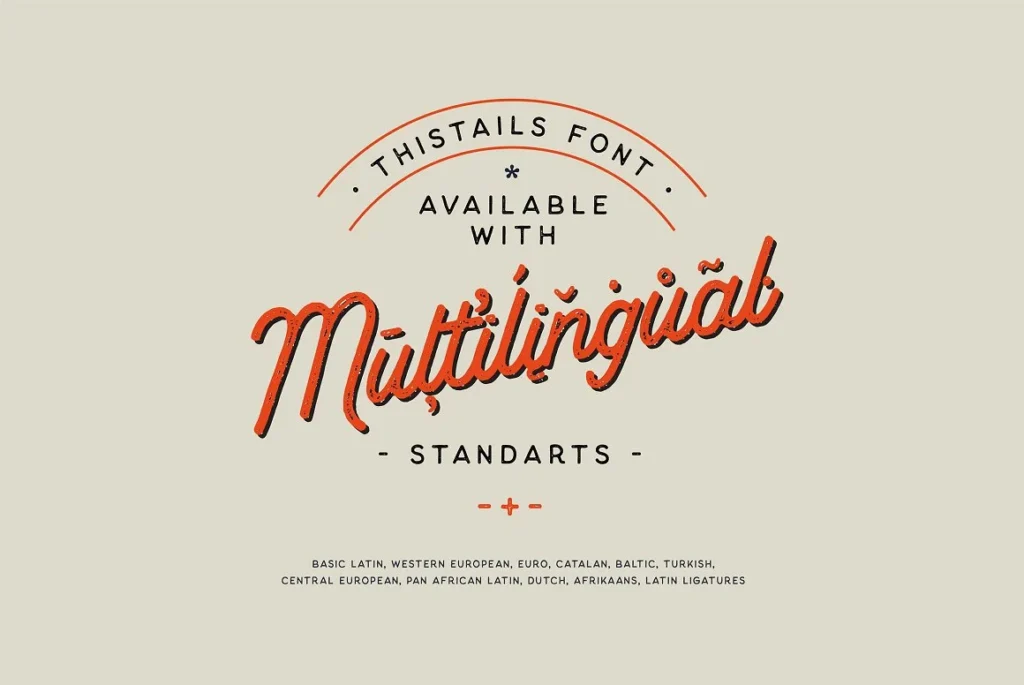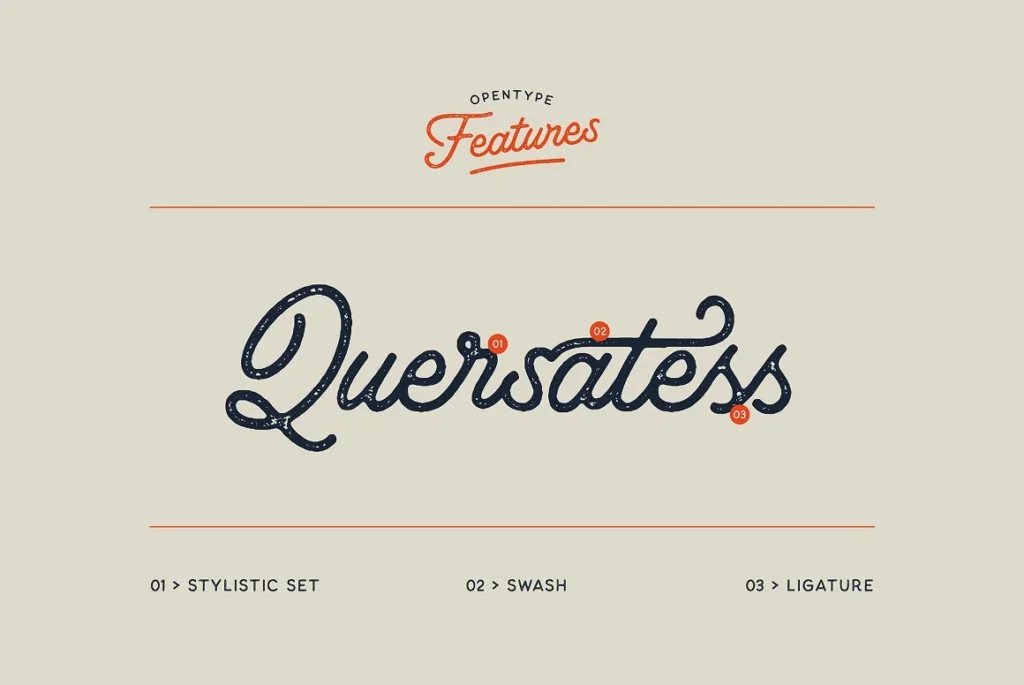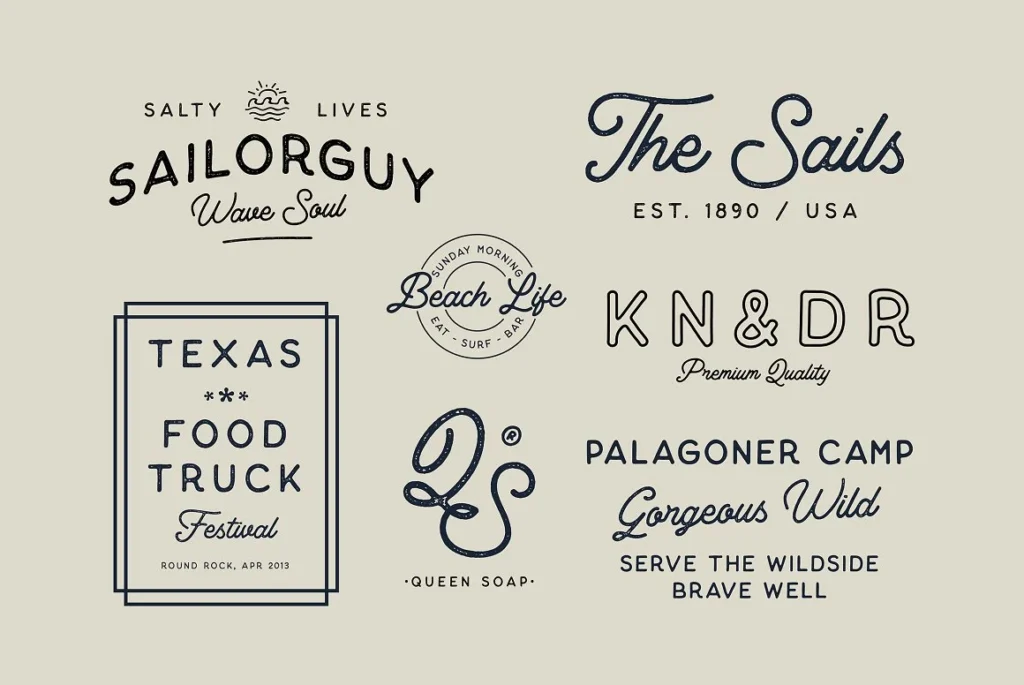
Thistails Font Duo is a textual style team with present-day rare look configuration styles, accessible on content and Show Sans serif typeface.
These two exquisite text styles would be wonderful to consolidate in your plan. Reasonable for computerized lettering, logos,
Shirts, prints, business cards, marking materials, quotes, nature photography, and so on, made with hand-painted and painstakingly created.